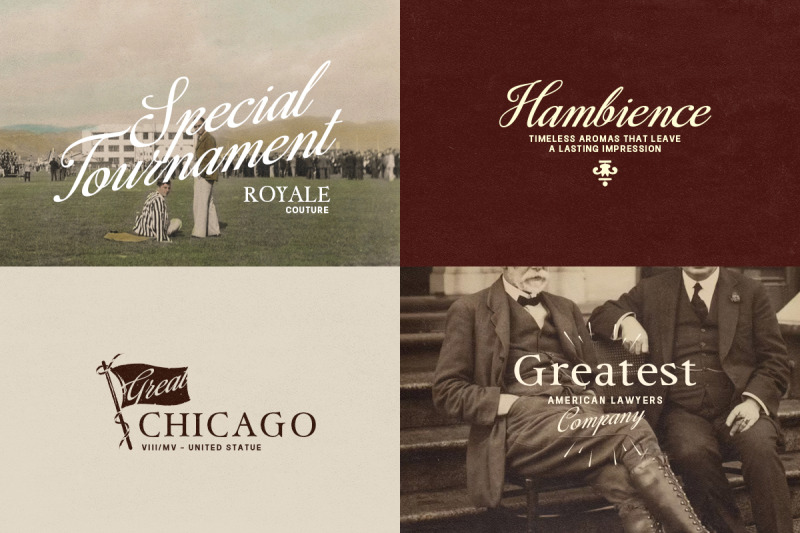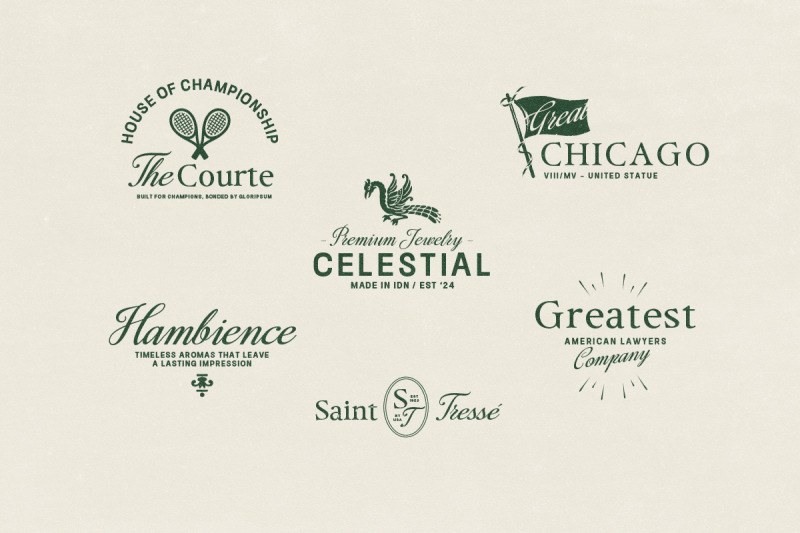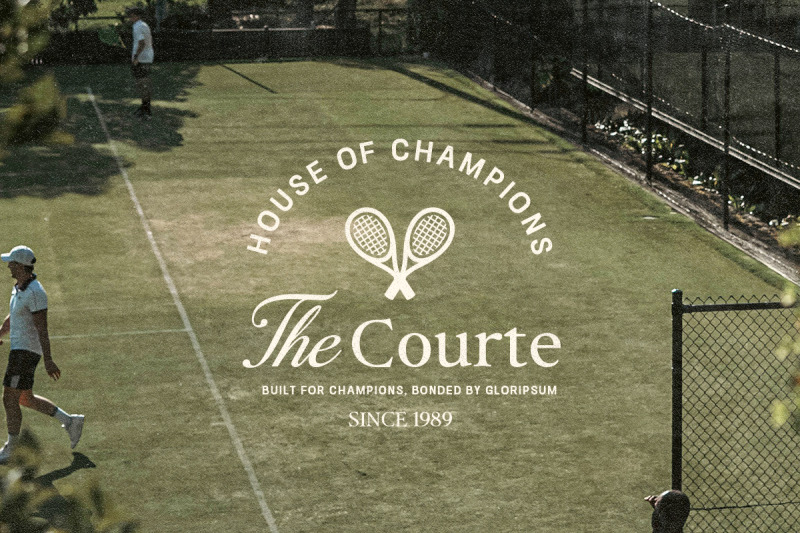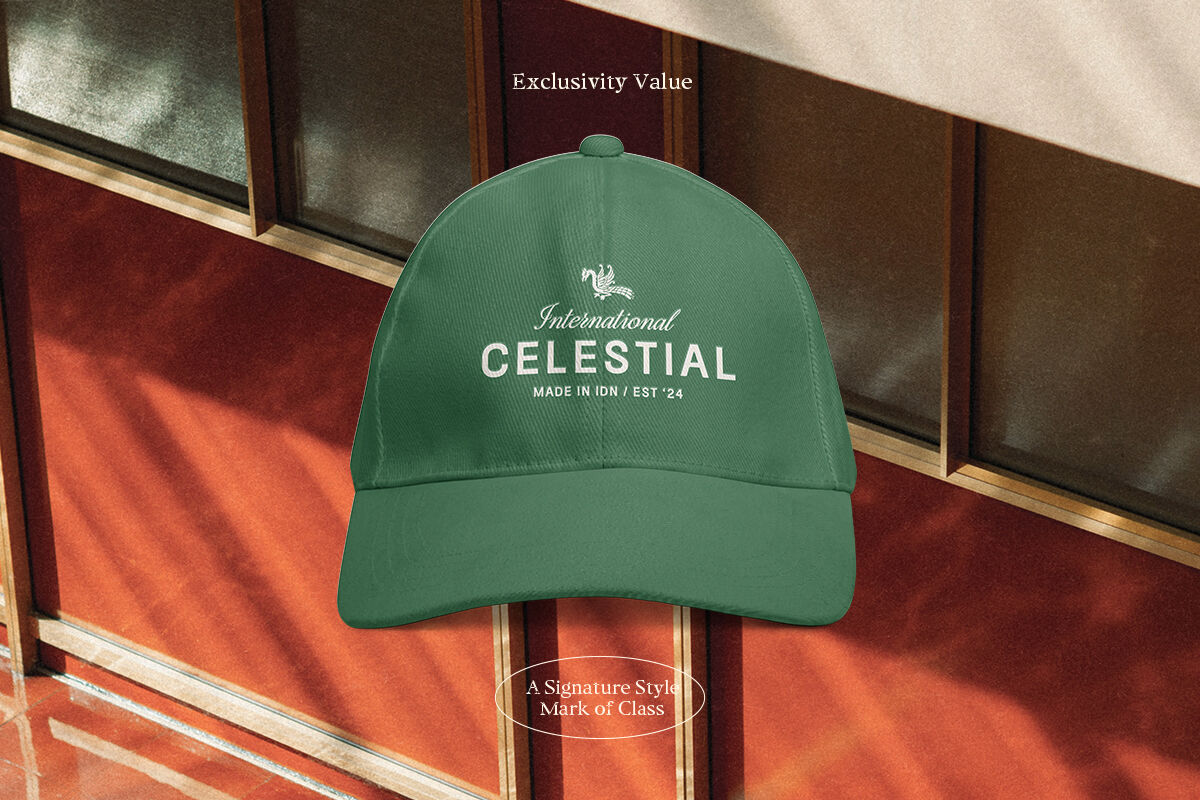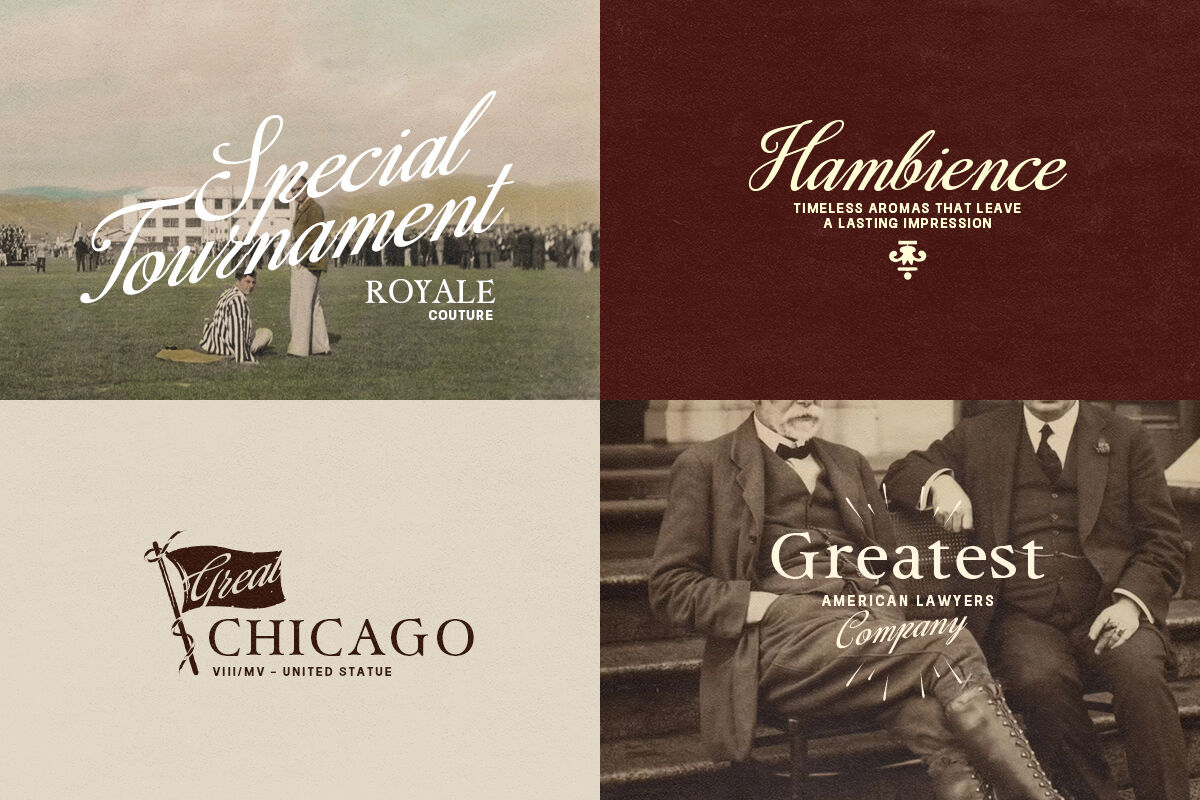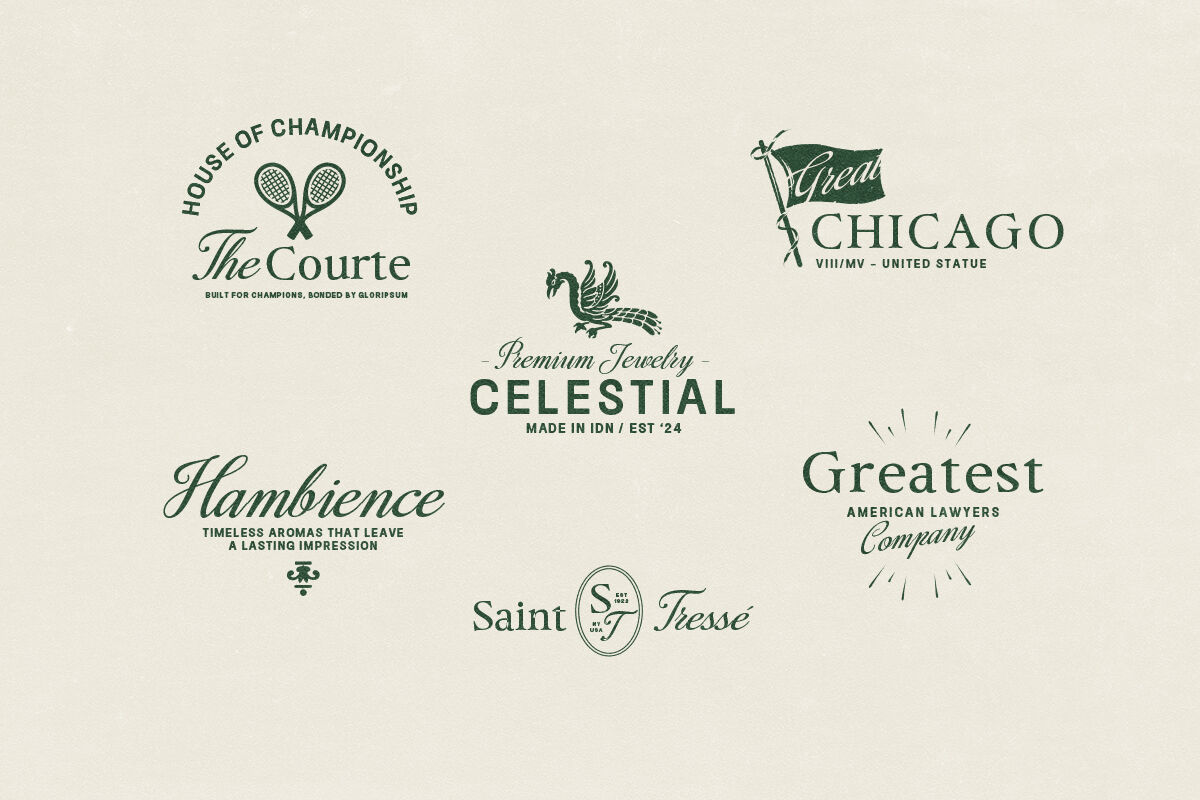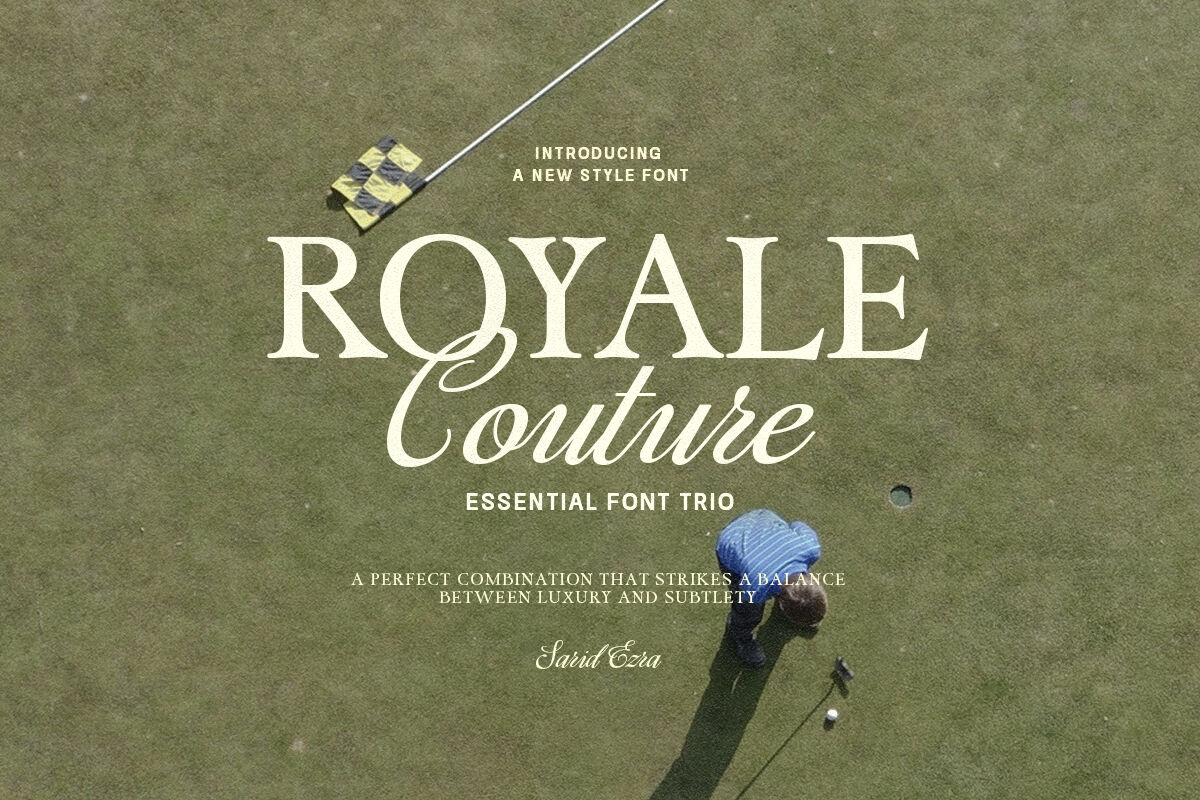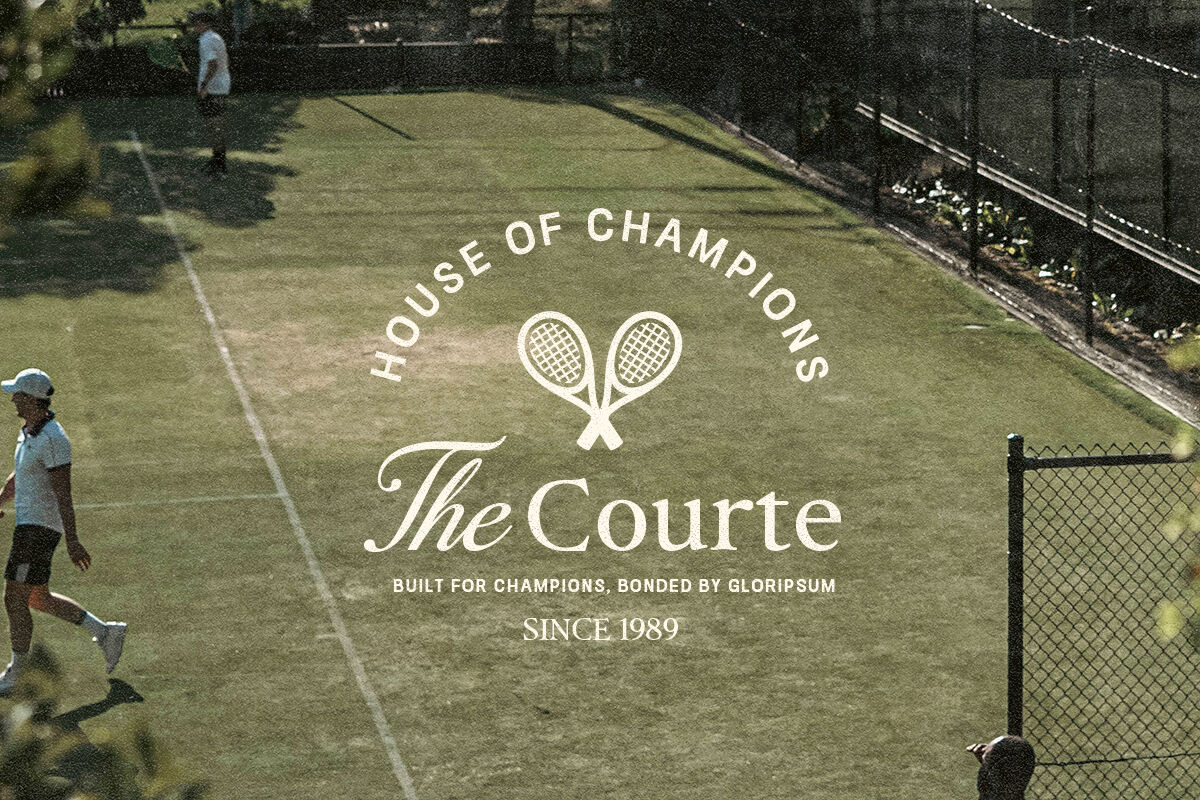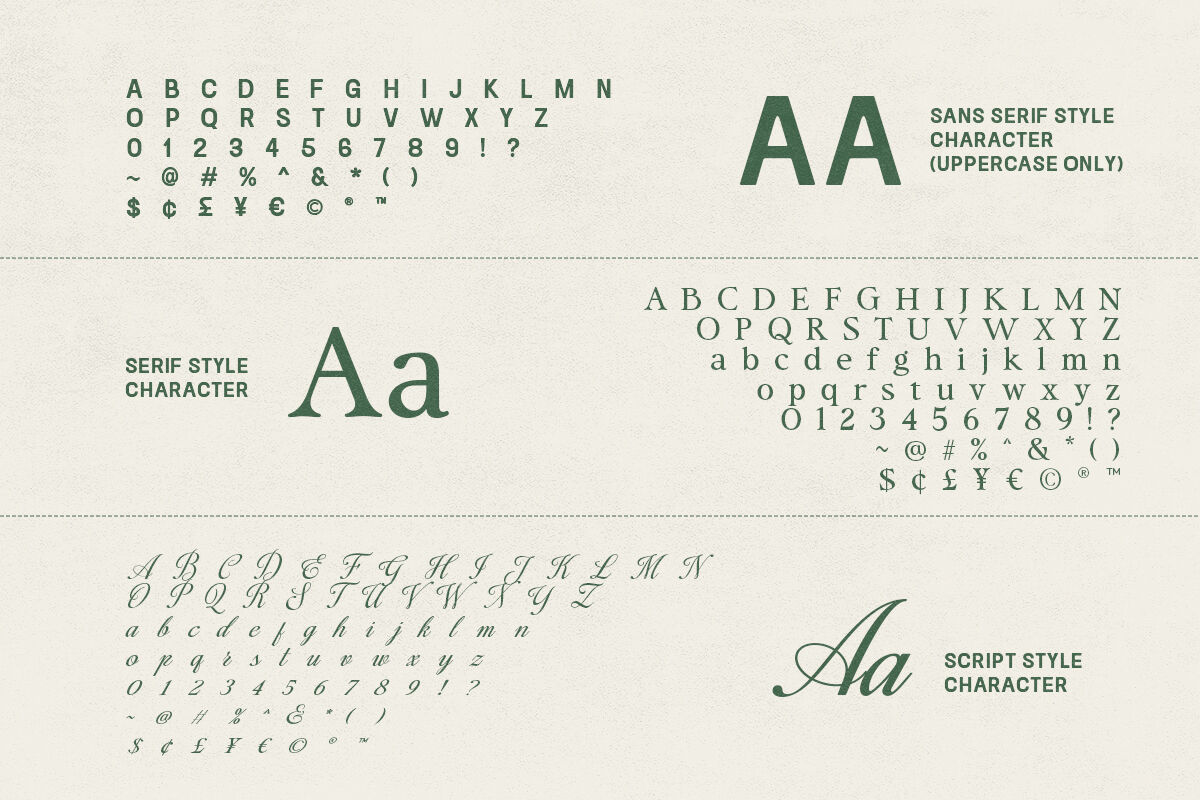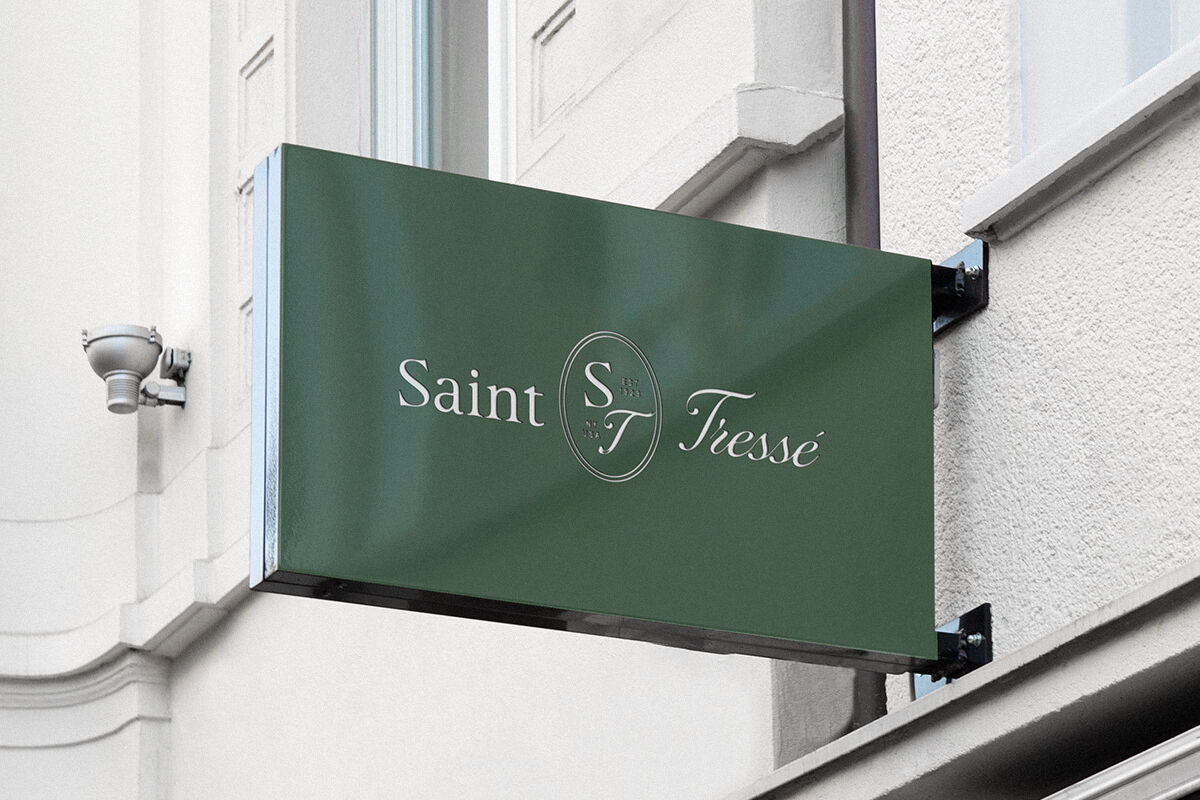
Royale Couture - Essential Font Trio
Royale Couture is an essential font collections that combining three fonts including bold serif, classic sans, and stylish script. This font trio also support multilingual, number and symbol. With the versatile style, You can use this font for any purpose such as logotype, branding, wedding invitations, and quotes. The best part is, you don't need to search for the pairing. It's gonna compliment each other.